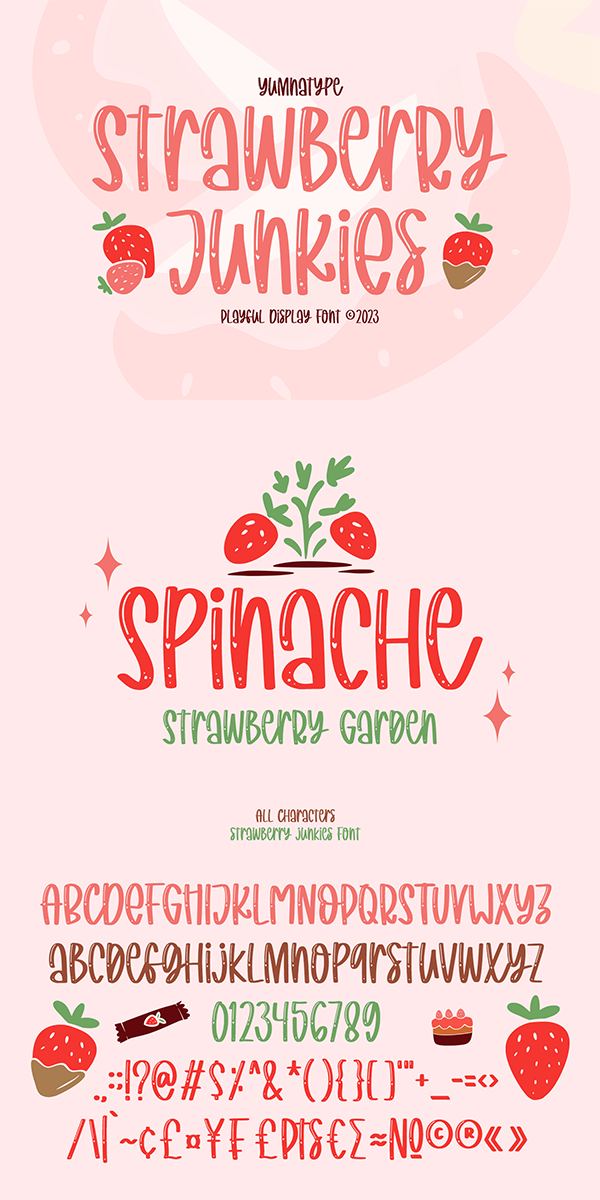
Strawberry Junkies Font
About Strawberry Junkies
It is a rather circled display font of which prone circled letters express soft, fun nuances in order that the company becomes more easily recognized by customers and audience. This font’s main characters are the consistent geometry, proportion, and line thickness on every letter to make it legible for big text sizes. In addition, Strawberry Junkies provides an extra clipart as a special bonus. Furthermore, you can enjoy the available features here.
Strawberry Junkies fits for various design projects, such as posters, banners, logos, magazine covers, quotes, headings, printed products, invitations, name cards, merchandise, social media, etc. Find out more ways to use this font by taking a look at the font preview.